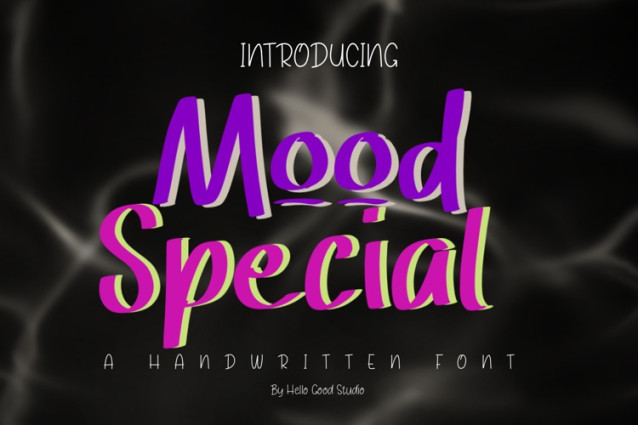
Mood Special Font
Mood Special Font is a modern display font designed to capture attention and evoke personality. With its smooth curves, playful strokes, and dynamic contrast, this typeface brings a sense of creativity and charm to any design. The subtle retro influence combined with a contemporary twist makes Mood Special perfect for branding, posters, social media graphics, and editorial headlines.
Its expressive letterforms are crafted to stand out while maintaining readability, allowing designers to communicate emotion and identity effortlessly. Whether you’re aiming for something fun, stylish, or eye-catching, Mood Special delivers a unique visual voice that leaves a lasting impression.